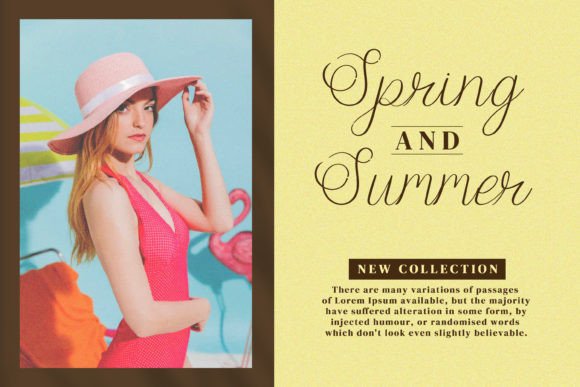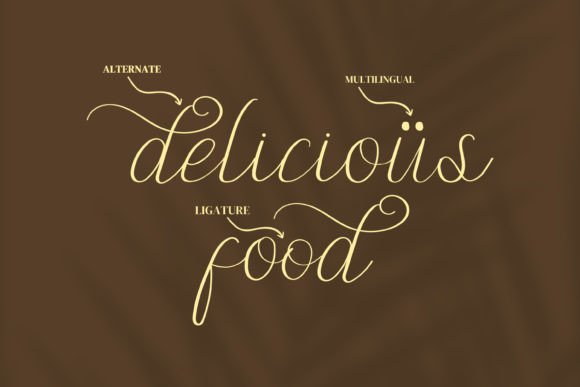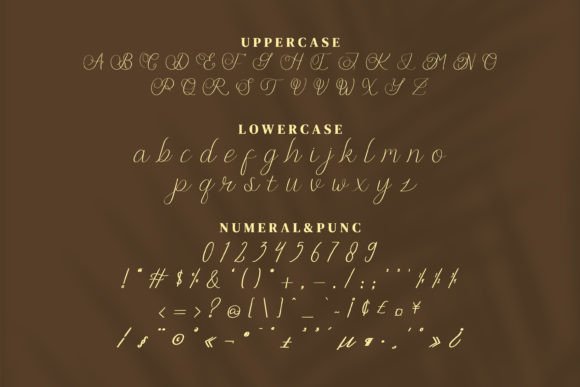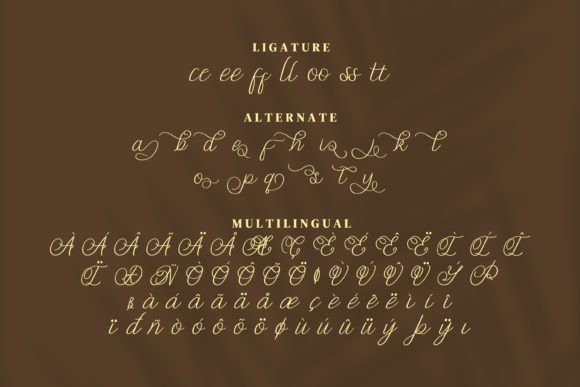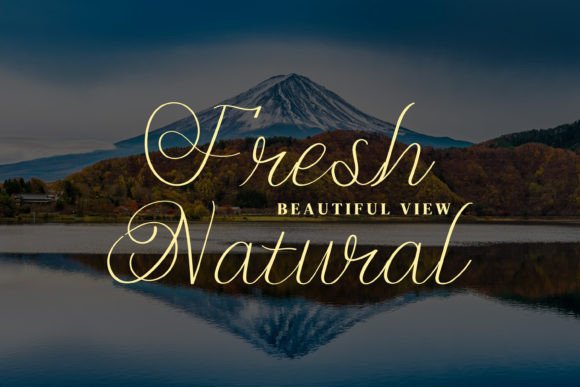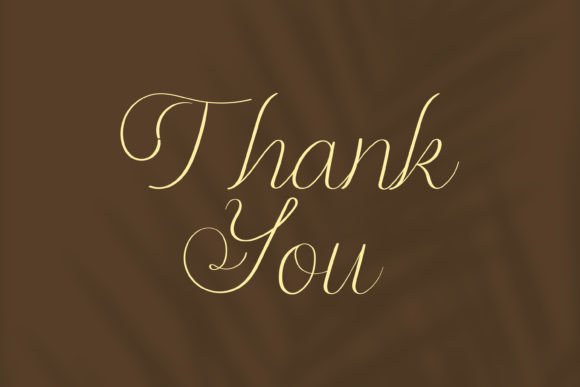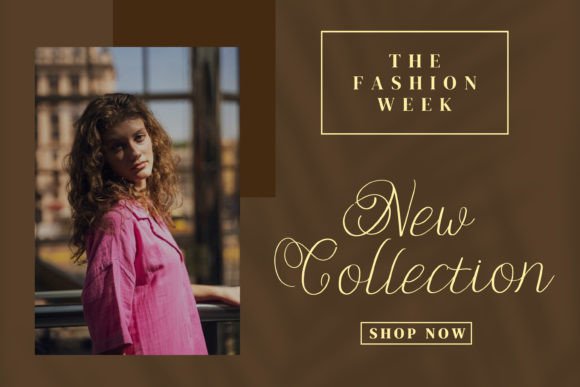
Fogifty
About Fogifty
Fogifty is a stylish and modern handwritten script font. Its dainty characters are perfect for adding a luxury spark to your designs.